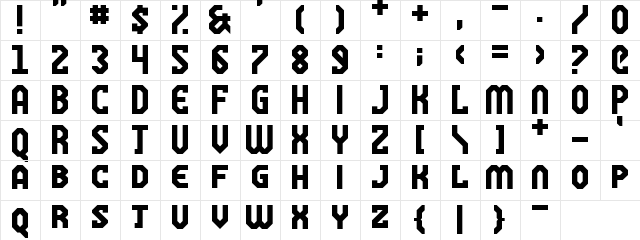
You Can't Kill Old School Regular
| Designer | NAL |
Design Context for You Can't Kill Old School Typeface
You Can't Kill Old School takes a measured approach to typography — its balanced proportions and neutral character make it a reliable workhorse for both digital and print work.